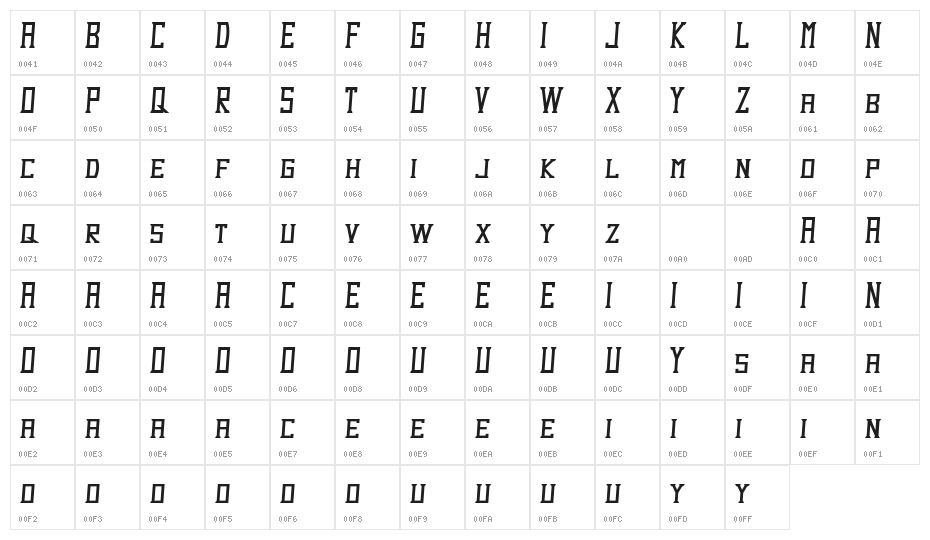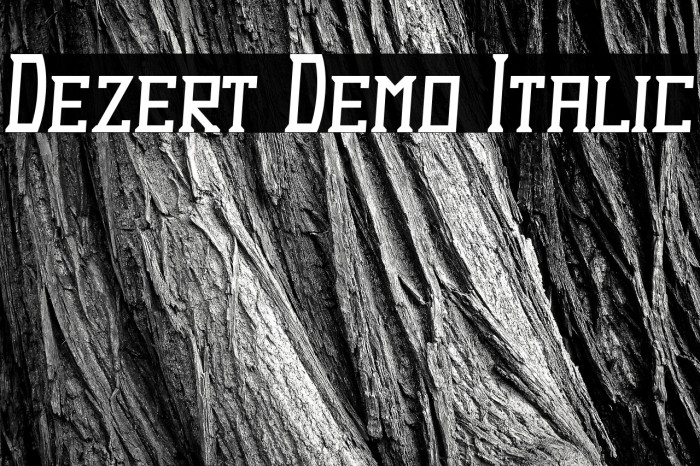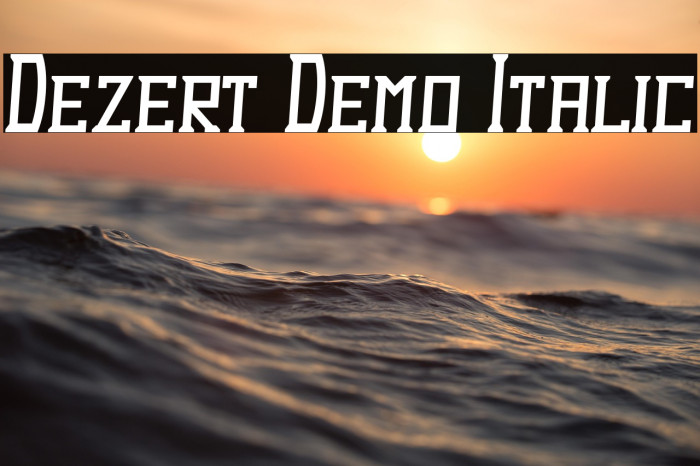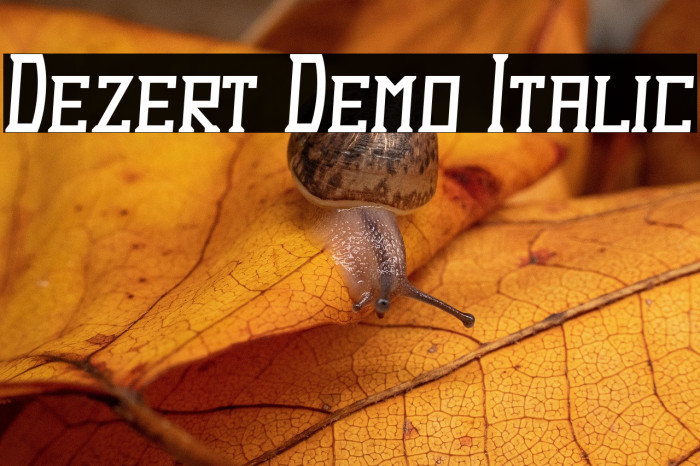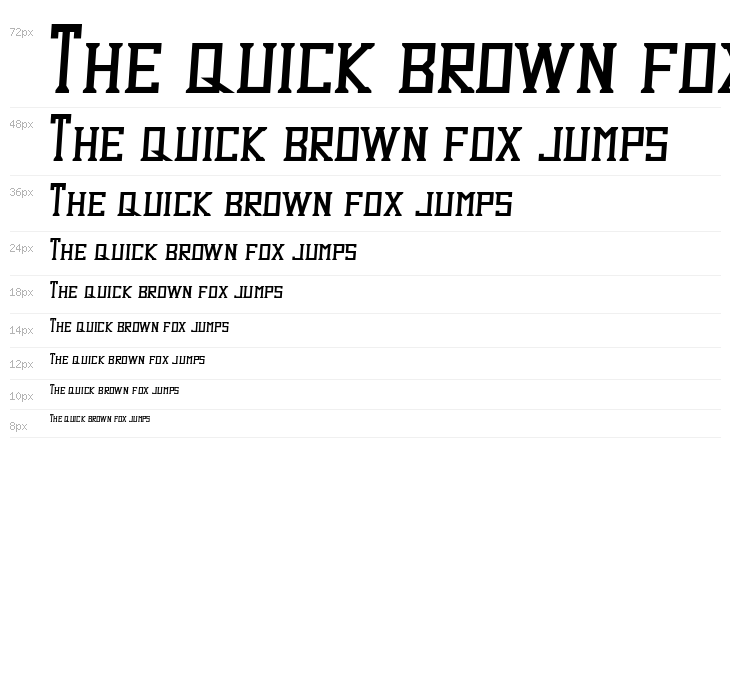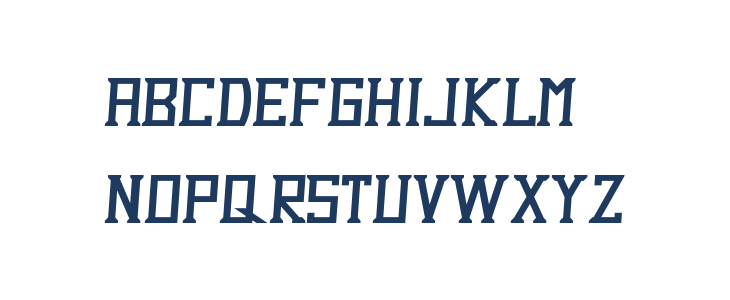
Dezert Demo Italic Font
Dezert Demo Italic Description
This font features a bold and dynamic style with a distinct italic slant, giving it a sense of motion and energy. The characters are sharply defined with angular edges and a geometric structure, creating a modern and edgy appearance. The uppercase letters are particularly striking, with a uniform height and consistent stroke width, while the lowercase letters maintain the same angular style, ensuring readability. The numbers and special characters are designed to match the overall aesthetic, making this font versatile for various applications. Its unique style makes it suitable for projects that require a bold statement.